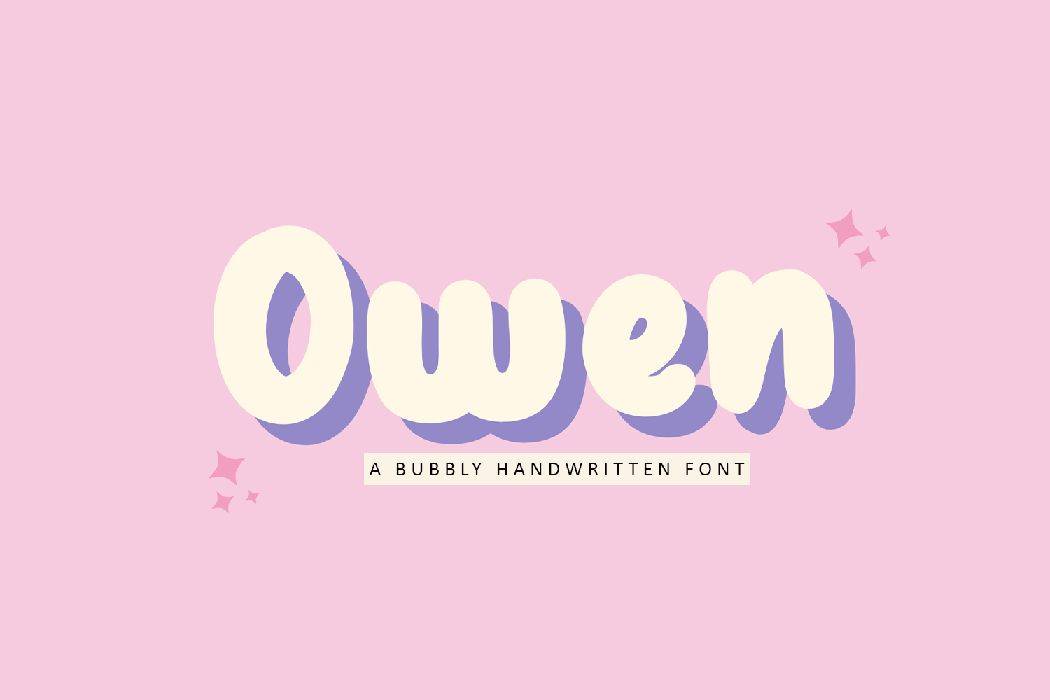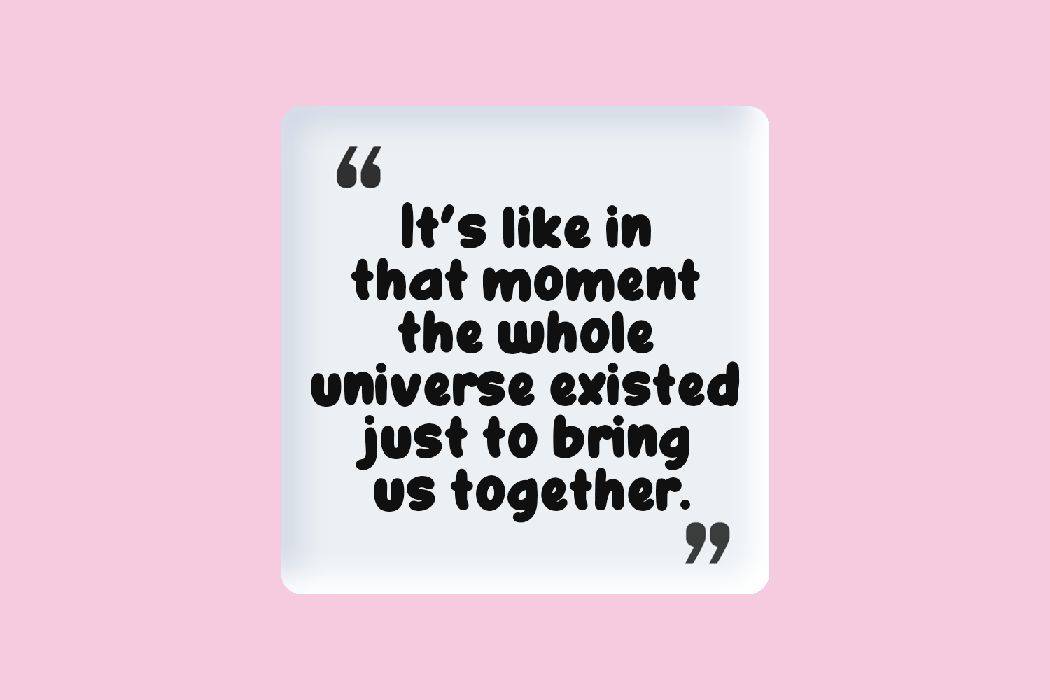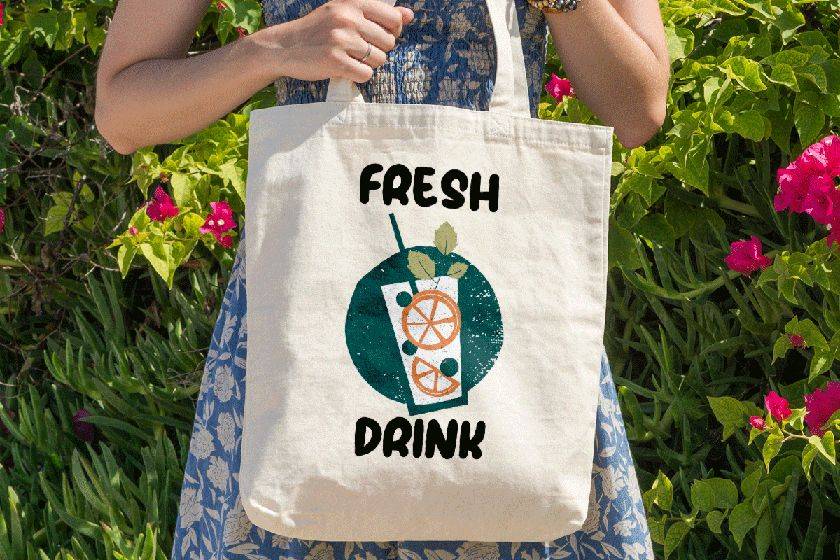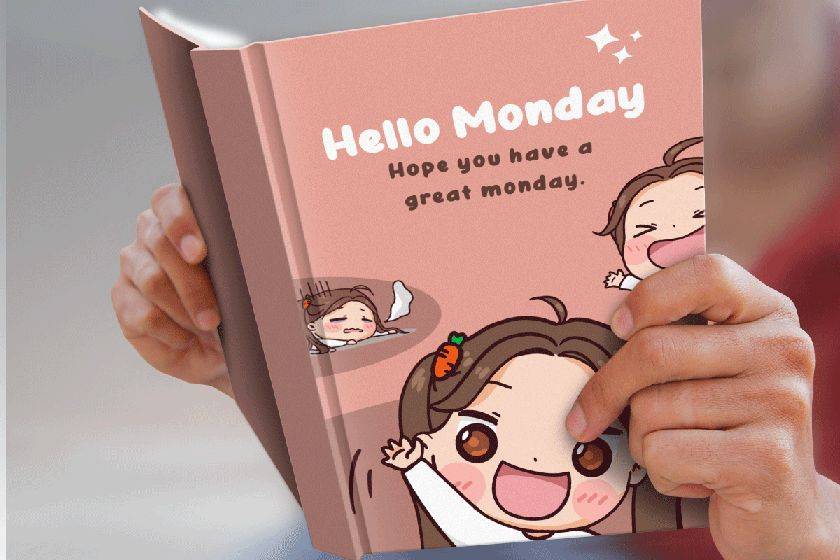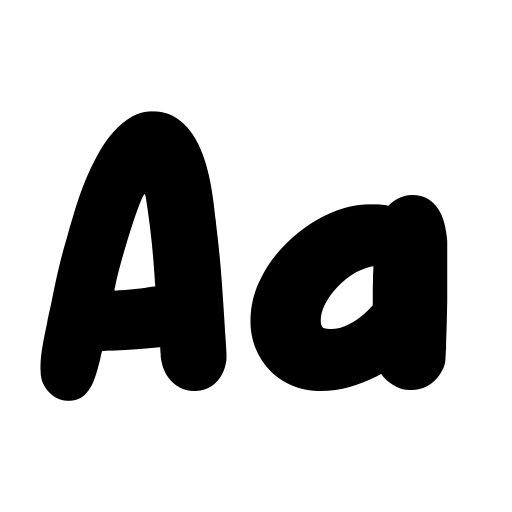
Owen Cute Font is a playful, rounded sans serif typeface with a bold weight and friendly, approachable character. Its soft, bubbly letterforms and even stroke widths give it a warm, informal feel that’s perfect for children’s products, casual branding, and fun headlines. This charming font works well in designs that aim to be inviting and cheerful, such as posters, packaging, and websites targeting a youthful or whimsical audience.
Owen Cute Font
About Owen Cute Font
| Font family | Owen Cute Font |